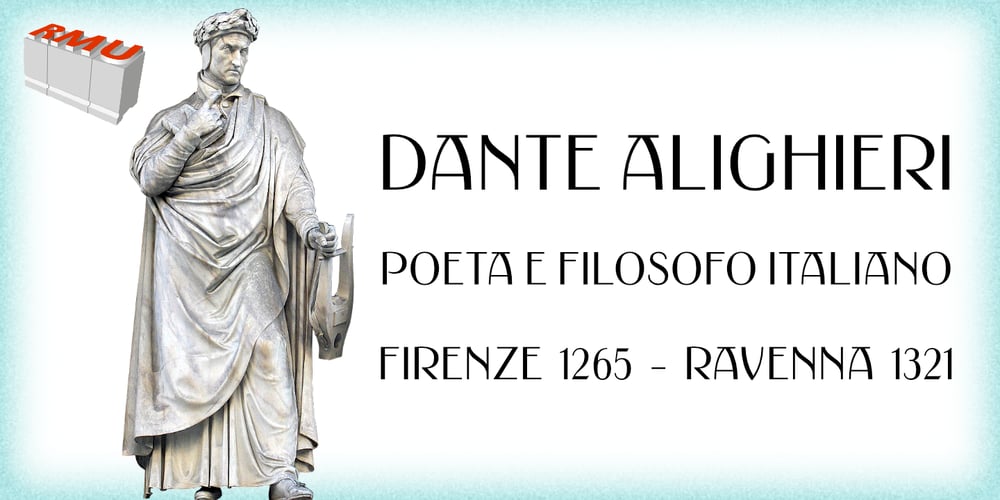
Dante Alighieri Font Family was designed by Ralph M. Unger and published by RMU. Dante Alighieri contains 2 styles and family package options. From the great Schelter & Giesecke collection, Dante Alighieri is a splendid companion to Aldo Manuzio. With its rather condensed characters it makes an ideal body text font even for narrow columns. Dante Alighieri comes with the historical long s and swash letters of H and T. It can be used for all major West and Central European languages.